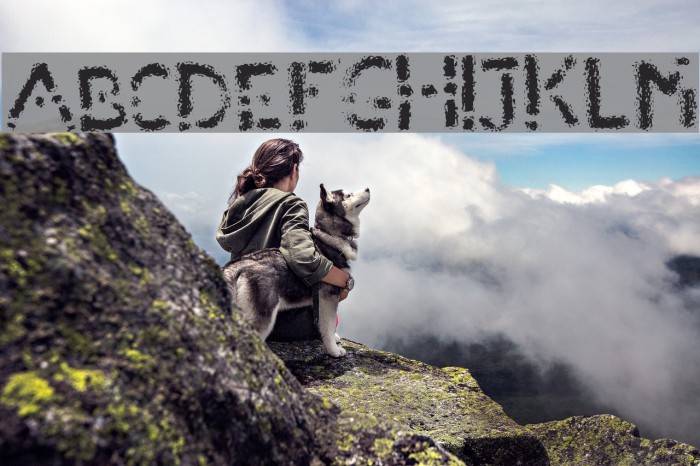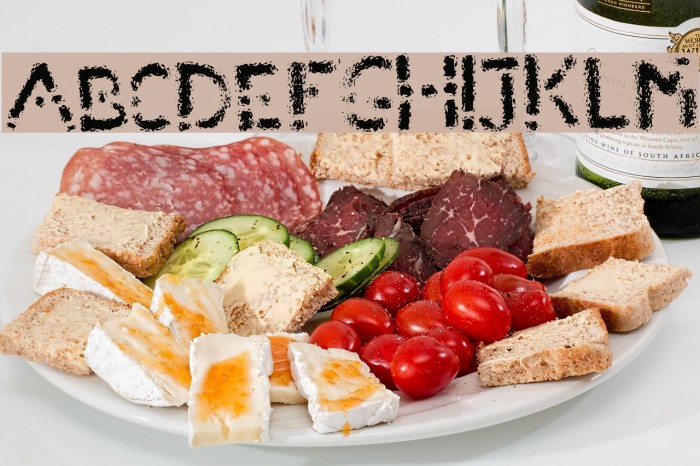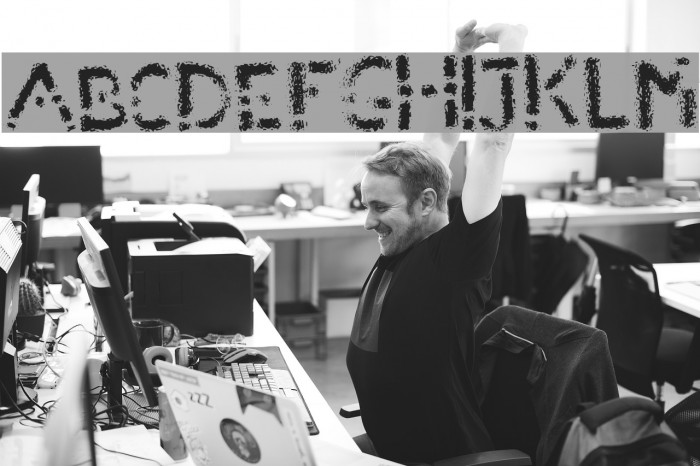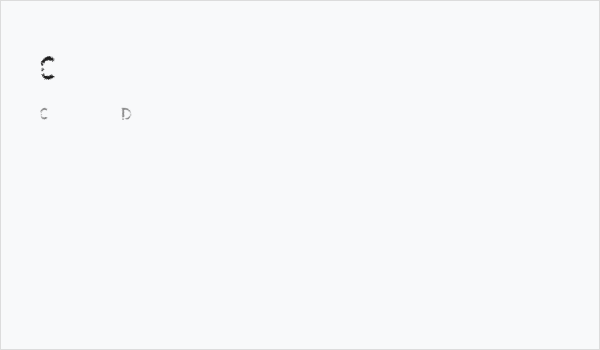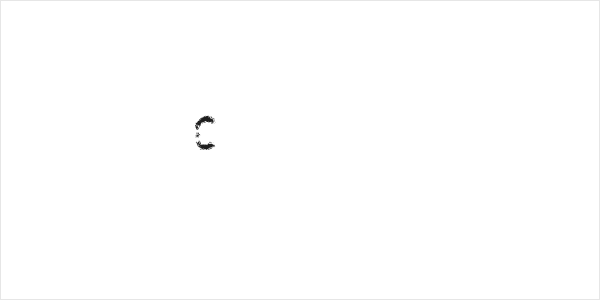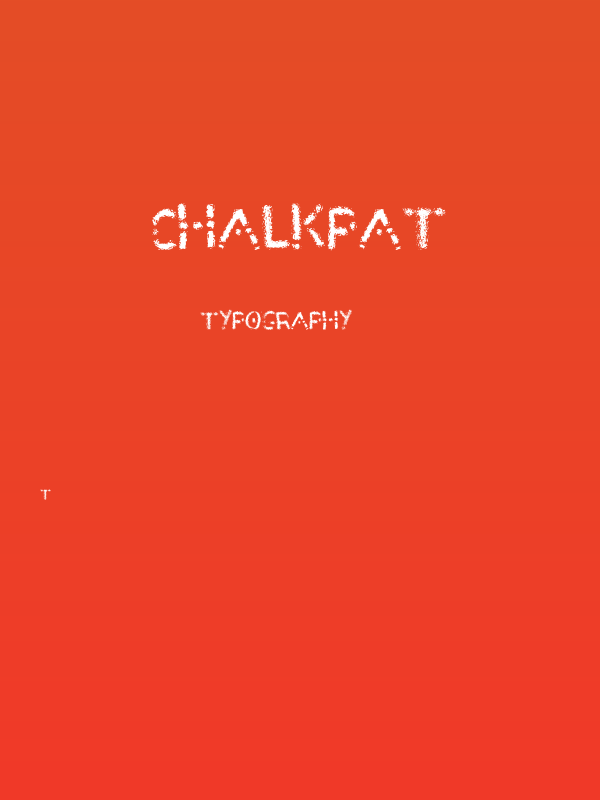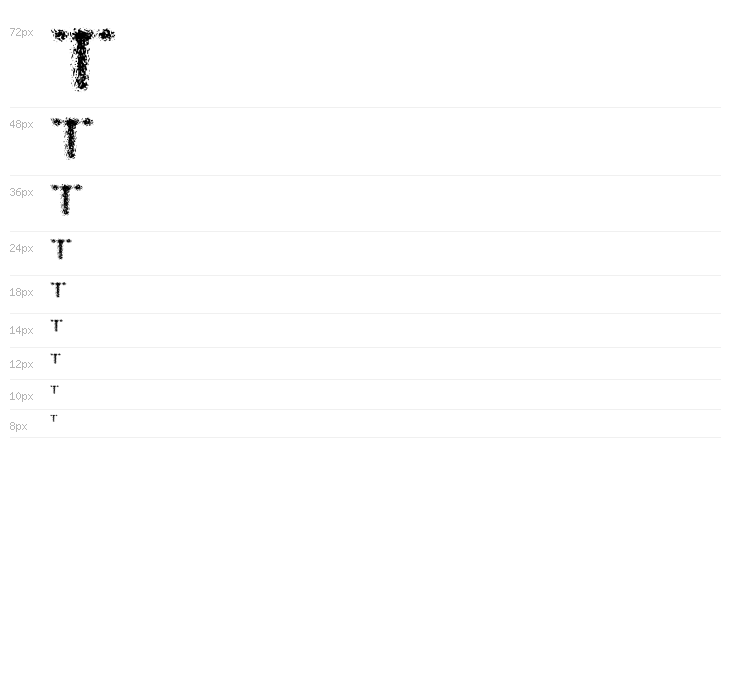
Chalkpat Font
Chalkpat Description
This font features a textured, distressed appearance reminiscent of chalk writing on a blackboard. The letters are bold and slightly irregular, giving them a hand-drawn feel. The rough edges and uneven strokes add a playful and informal touch, making it suitable for creative and casual designs. The uppercase letters are prominent, with a consistent height and width, while maintaining a unique individuality in each character. This style evokes a sense of nostalgia and creativity, perfect for projects that aim to capture a rustic or educational theme.
| Overall Style | Playful, Rustic |
| Use Case | Headlines, Posters, Creative Designs |
| Proposed Projects | Ideal for educational materials, children's book covers, cafe menus, and creative posters. |